Gumblery - A futuristic stylistic font
with smooth curves and rounded corners $15
Comes with more than 500 different ligatures that curl and swurl the letters in funky forms.
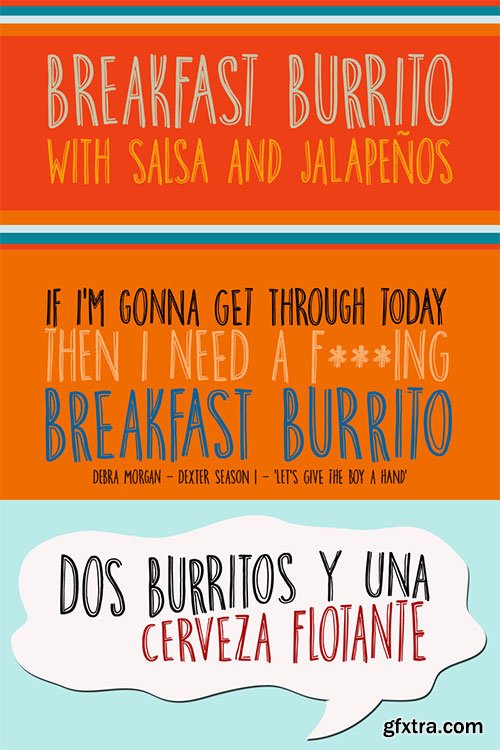
Breakfast Burrito
All Caps with a Little Twist $15
- Recently I have been watching some re-runs of Dexter. In season 1, Debra has a rough morning and complains she cannot make it through the day without eating a breakfast burrito. The name stuck, a font was born and the result is Breakfast Burrito font. It is a tall, all caps typeface with a little twist.
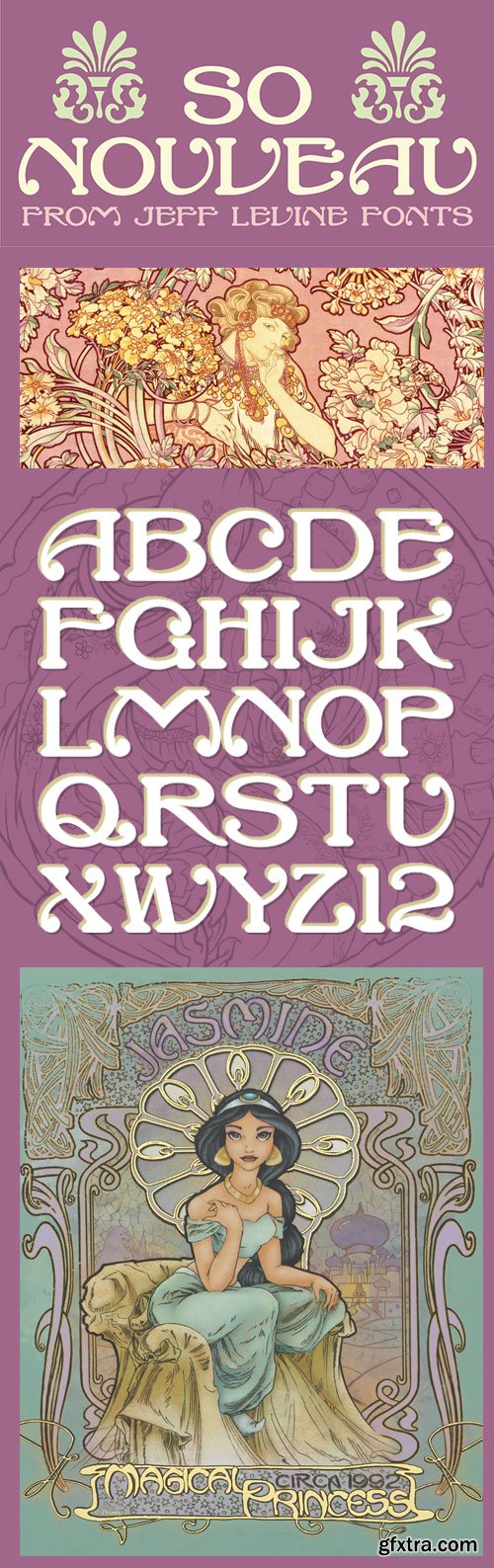
So Nouveau - A Nostalgic Charm Typeface $25
- Three of the four letters of the name “Jane” on the cover of a vintage piece of sheet music inspired So Nouveau JNL. The free-form swoops emulating the pen lettering of the early 1900s adds a nostalgic charm to this typeface.
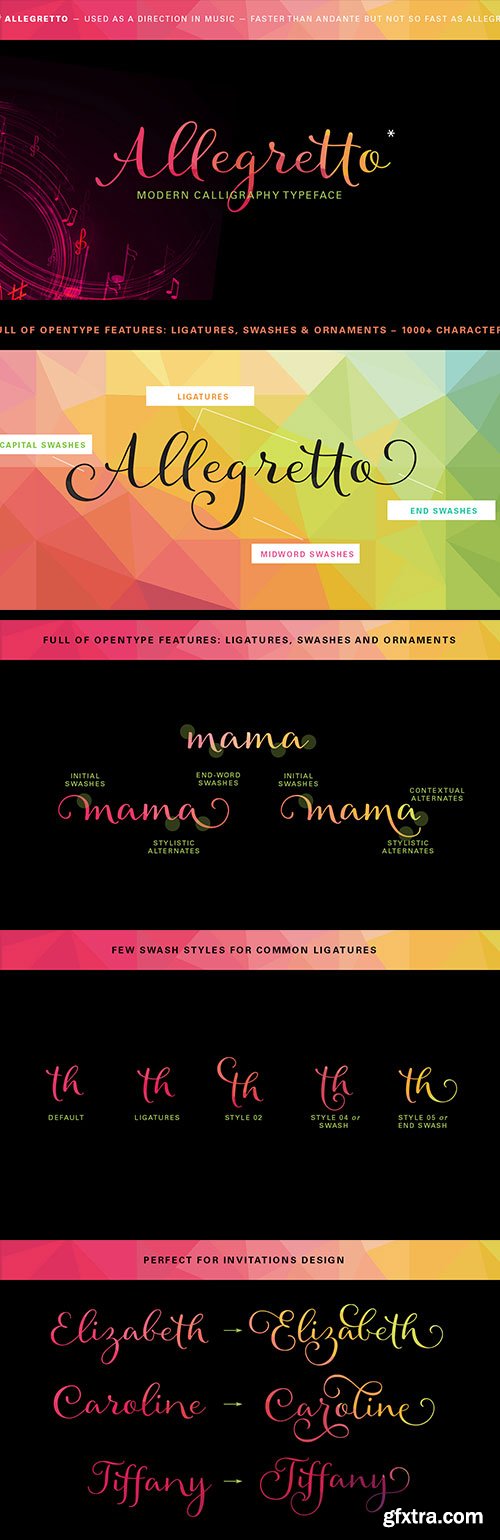
Allegretto Script
Inspired by Mozart’s Rondo Alla Turca
- A modern calligraphy typeface with a playful yet elegant style, inspired by Mozart’s “Rondo Alla Turca” and his other compositions played with allegretto tempo. The font contains more than 1000 glyphs. Each letter in the typeface has few different swashes that can be accessed via glyphs panel of your opentype-aware application such as Adobe Illustrator, Adobe InDesign, MS Word. To have access to all glyphs in Adobe Photoshop you may need to install an additional software such as PopChar®.
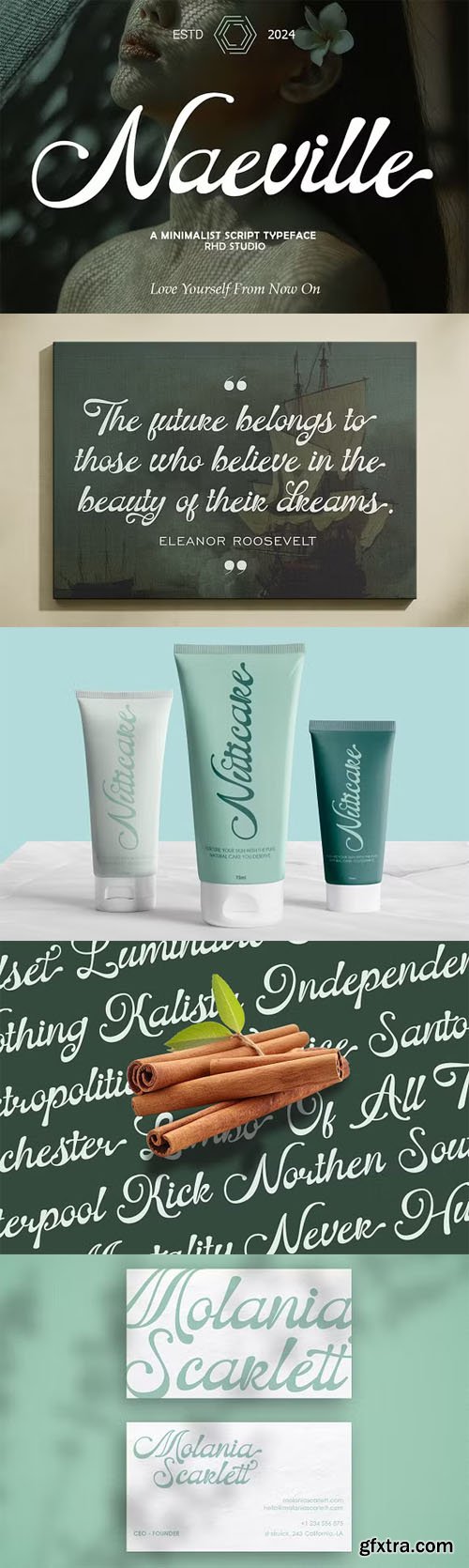
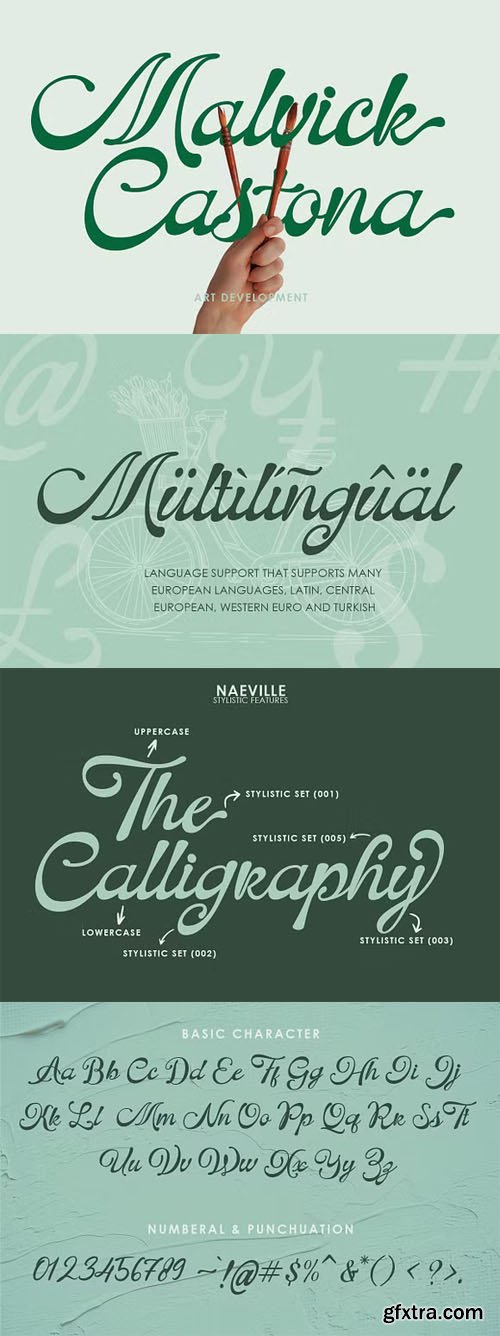
Naeville - Modern Classic Style Script Font
Uppercase, Lowercase, Punctuation, and Contextual Alternative Binding Symbols.
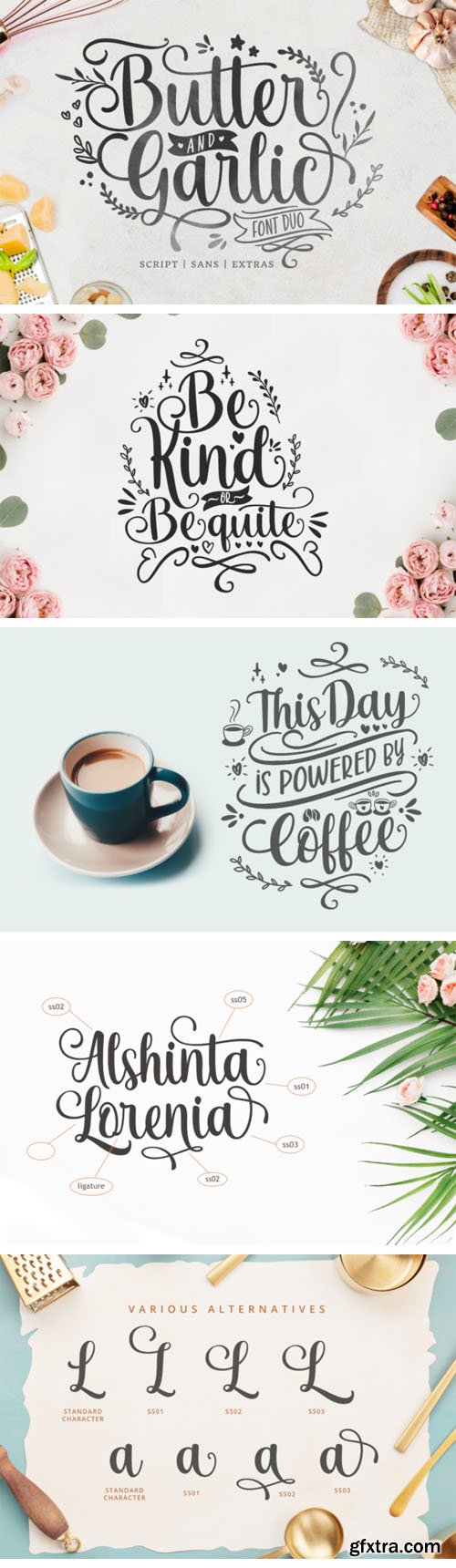
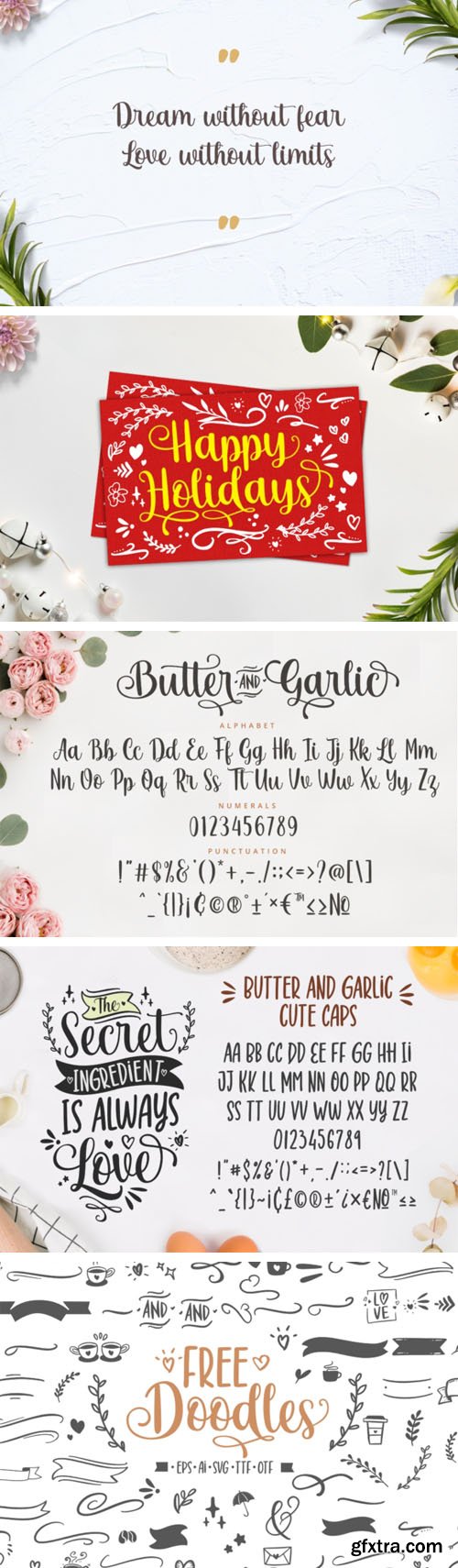
Butter and Garlic Font Duo - Romantic Handwritten Font
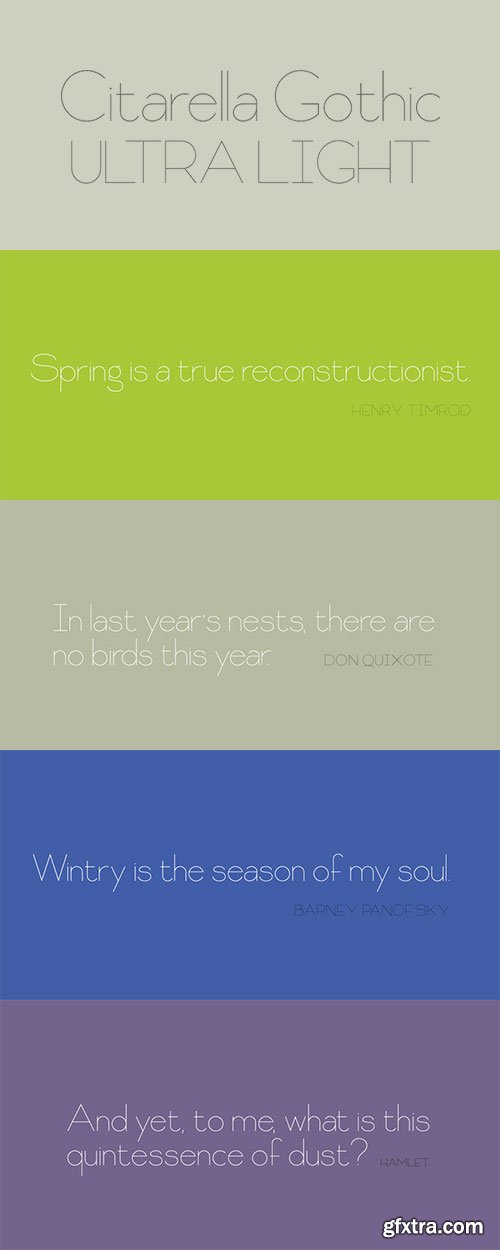
Citarella Gothic Ultra Light $20
- In seeking a strong, utilitarian gothic alternative for Helvetica, we're left with few options for unobtrusive functionalism. As such, we decided to create the Citarella Gothic family. The ligatures are characteristic of the signage and architecture around Sarno, where the Citarella family originates. The sweeping arcs, broad counters, and clean swashes allow for the architectural design to be imbued with the warmth and humanity of its namesake.
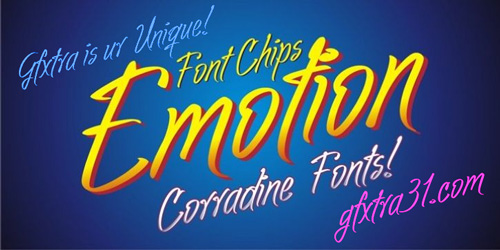
Emotion - Fashionable Handwriting Brush Font
- This is a Manuel Corradine’s personal project devised in 2006. It aims to develop fonts in a wide range of styles, since experimental, modular or calligraphic to workhorse text fonts. Most fonts of the foundry have been developed directly by him, but there are some of them designed by (or in collaboration whit) other Colombian designers.One of the added values of many of the foundry's fonts is the Open Type programming, so are very useful tools due its lot of possible variations.
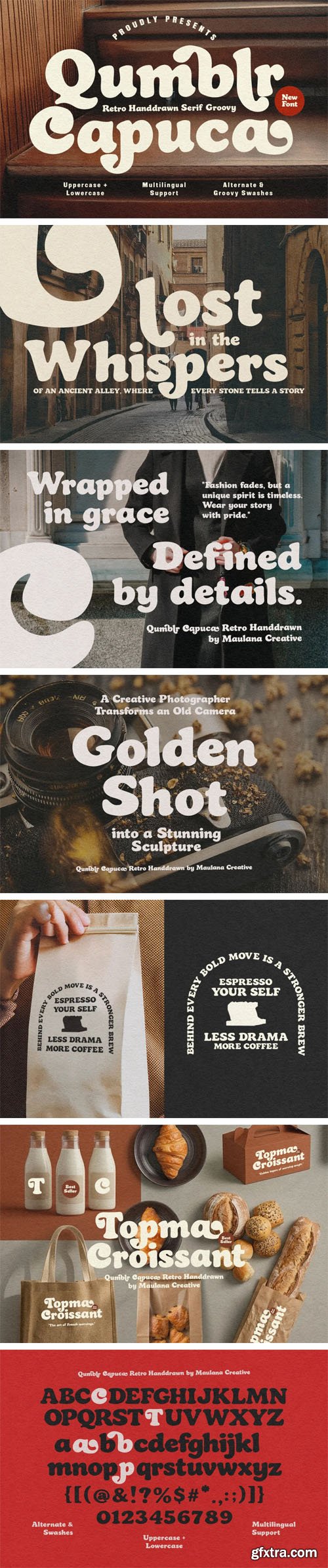
Qumblr Capuca - Retro Hand-drawn Serif Groovy Font
My Way - Wild & Anarchic OTF $18
- MY WAY belongs to fonts which contain “aesthetic of ugly”. This is a font with a good balance of rhythm and contrast. It’s aim is casual, wild and anarchic layout. Because of the spontaneity which this font contains, you cand find plenty of Standard and Discretionary Ligatures, just to avoid frequent repetition of letters. If you find single repeating glyphs, you can change that by toggling between Stylistic Alternates, if you want. There are ligatures created for Cyrillic too.MY WAY is perfect choice for all dirty, naturally and wild, but authentically beautiful things as Blues, Jazz, Punk.
CM - The Artist - Brush font 238126
The Artist is a realistic paint brush font.
Please see all of the additional pictures to see how it looks and is probably
best used large for display or watermarking.
CM - Skyoval Typeface 321119
- Skyoval Typeface is a new hand lettering stylish Calligraphy. Bold, Modern, Simple & Elegant. Skyoval Typeface features 344 glyphs and 156 alternate character contain with opentype features. Swash, Contextual, Stylistic alternates and Ligature.
CM - Oak & Ash - Hand Drawn Font 181897
- This is a cleaned up version with some alternates as capital letters. It's perfect for your hand drawn logos and branding. This font comes in .TTF format and includes 10 numbers, Various Glyphs, 26 letters with 5 alternates. This font is best when used with my other hand drawn fonts: Sergeant and Pearl District.
CM - Solaris - Futuristic Font OTF 176901
Toggle Caps Lock for alternate characters!
Solaris is a futuristic font with alternate letters, numericals and punctuation.
It's tall, bold and I hope to see it on the side of a spaceship one day.
- So stop wasting hours switching back and forth between your two old favorites, and just use your new favorite instead. Comic Papyrus combines the timeless rustic qualities from centuries past with the hilarious fun-loving wit of today's funny pages. It'll make you laugh (like a joke) and cry (like a mummy). Simultaneously!